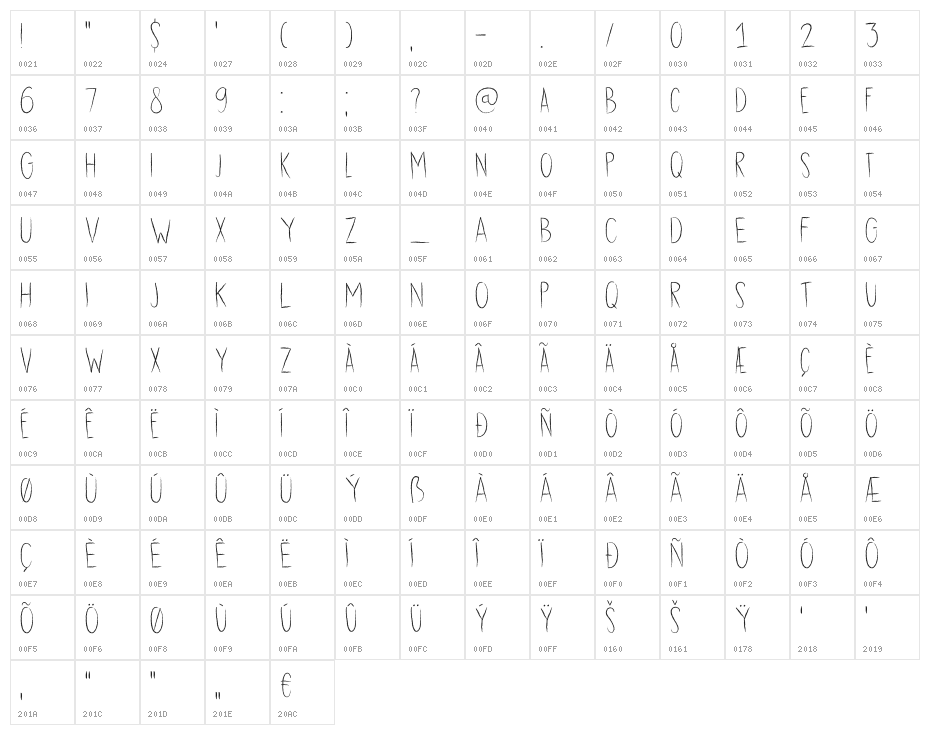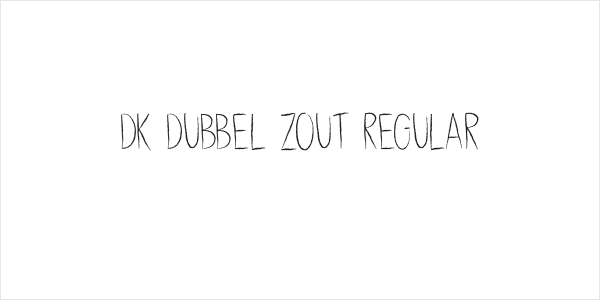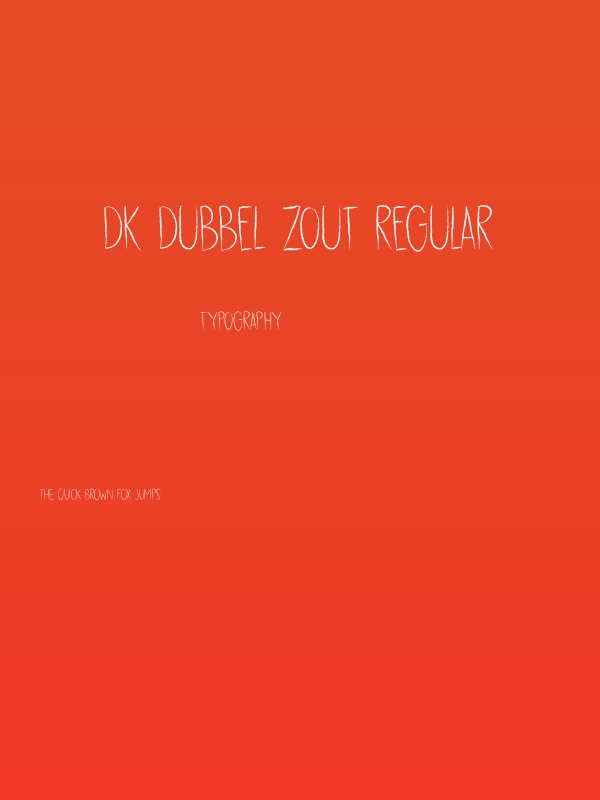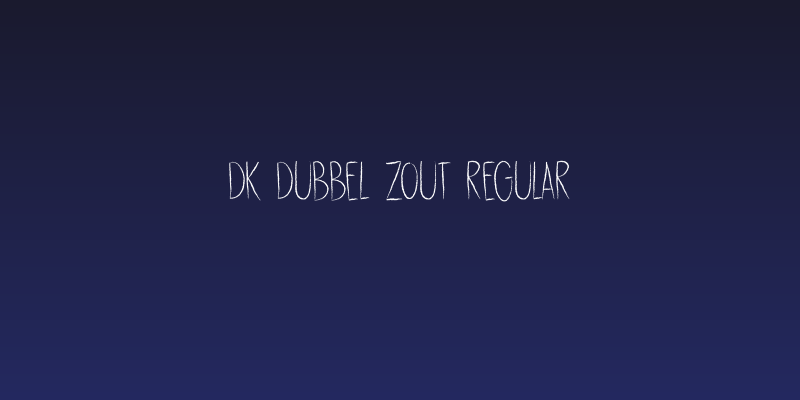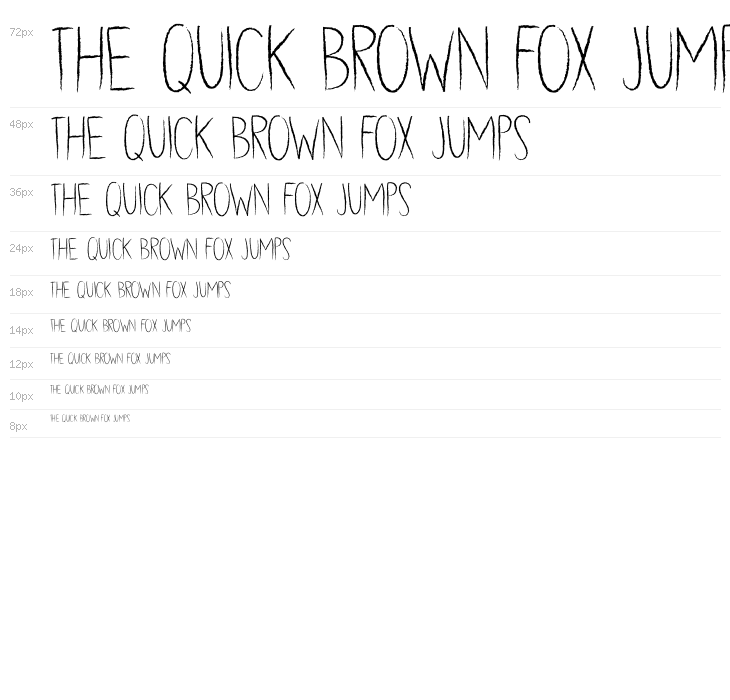
DK Dubbel Zout Regular Font
DK Dubbel Zout Regular Description
This font features a hand-drawn, sketch-like appearance with irregular strokes and a slightly rough texture. The characters are tall and narrow, giving them a distinctive, elongated look. The uppercase and lowercase letters maintain a consistent style, with a playful yet edgy feel. The numbers follow the same aesthetic, adding to the font's cohesive design. Special characters are included, enhancing its versatility. This font's unique style makes it suitable for creative projects that require a touch of personality and flair.
| Proposed Projects | Ideal for posters, album covers, artistic branding, and creative invitations. |